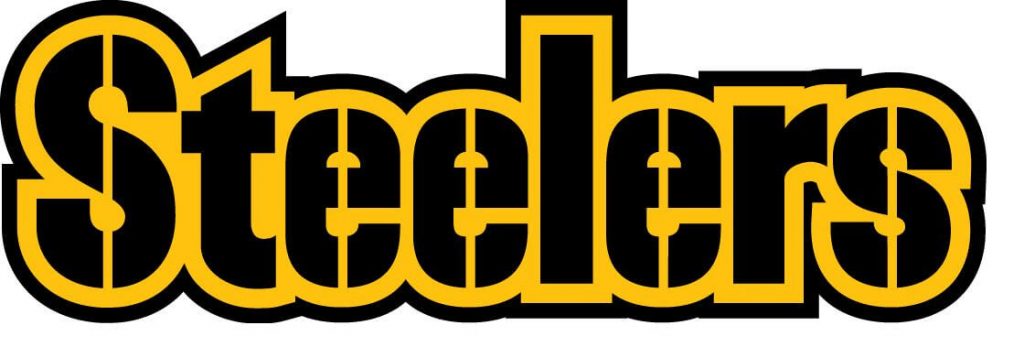
Introducing the NFL Steelers font! This display text font family is perfect for social media designs and posters with quotes. It is also ideal for creating logos.
Due to this big form of glyphs in a single typeface. It’s simpler to use for higher font matching looke like league spartan and contrasting. In this manner, many designers anticipate it and are utilizing it for their progressing initiatives.